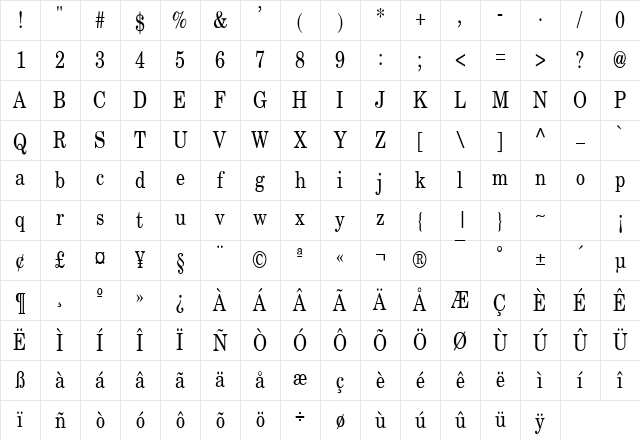
New Boston Thin Normal Free Font
New Boston Thin Normal
Design Context for New Boston Thin
New Boston Thin is a composed and adaptable typeface that performs quietly and consistently across a wide range of design contexts. Its slender proportions lend an understated elegance to any composition.